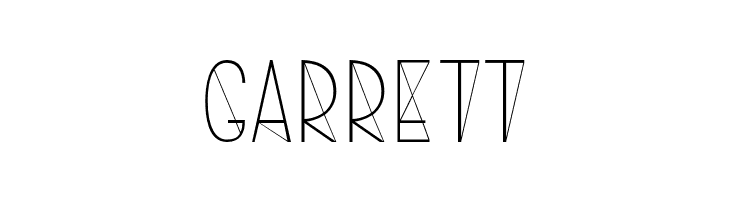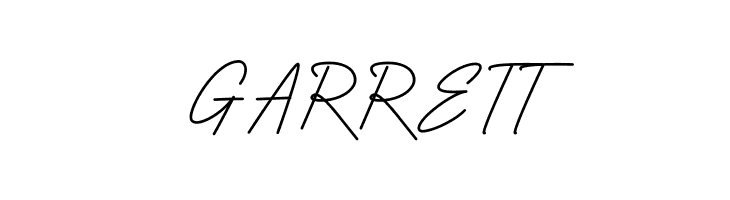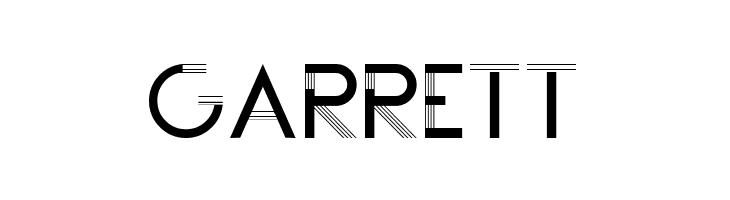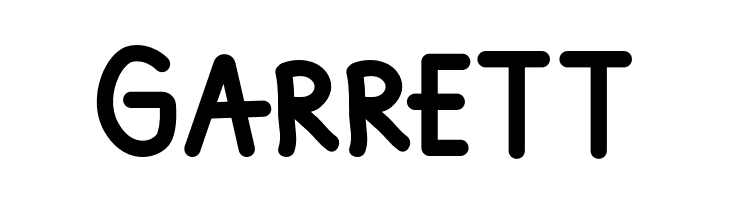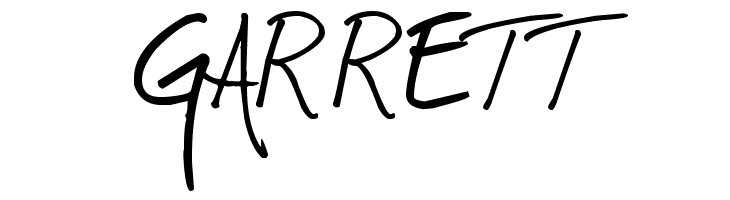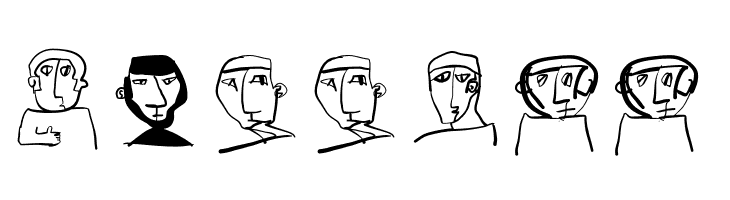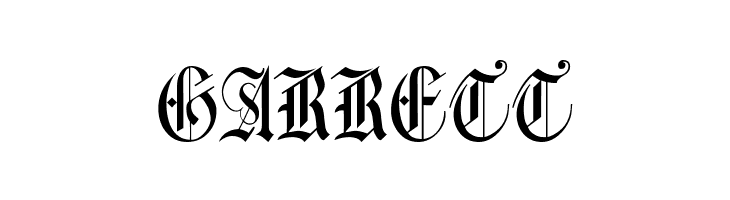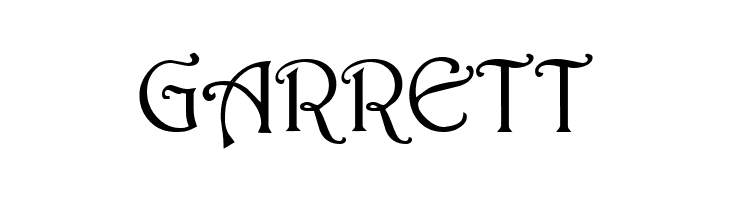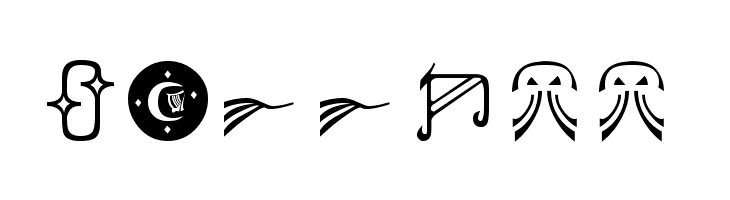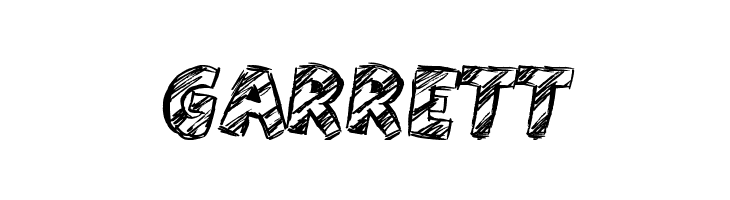
A modern, geometric sans-serif font with balanced proportions and clear readability.
A thin, modern sans-serif font with clean lines and a minimalist style.
A modern, clean sans-serif font with excellent readability.
A bold, modern sans-serif font with a clean and impactful design.
A modern, light sans-serif font with clean lines and balanced proportions.
A modern, clean sans-serif typeface with balanced proportions and clear readability.
A thin, modern sans-serif font with geometric precision and elegant simplicity.
A thin, modern sans-serif font with clean lines and balanced proportions.
A modern, elegant handwritten font with a cursive style.
A dynamic, expressive handwritten script with fluid, interconnected letterforms.
A specialized font for harp pedal notation with clear, structured symbols.
An intricate, decorative font with mystical and fantasy-inspired symbols.
A bold, angular font with a playful yet aggressive style.
A decorative serif font with elegant swashes and intricate detailing.
A dynamic handwritten font with fluid, interconnected strokes.
An elegant and flowing script font with graceful curves and sophisticated swashes.
A stylish cursive font with flowing, interconnected letterforms.
A cursive, elegant font with a handwritten style.
A lively and dynamic handwritten font with fluid strokes and playful tilt.
A bold, sketch-like font with a playful and dynamic style.
An ornate Blackletter font with high contrast and decorative flourishes.
A bold, playful font with rounded strokes and whimsical shapes.
Playful handwritten font with rounded edges.
A modern, geometric font with angular and artistic character designs.
An ornate, decorative font with intricate flourishes and a vintage style.
An ornate and decorative font with intricate flourishes.
A dramatic serif font with sharp, pointed serifs and a medieval flair.